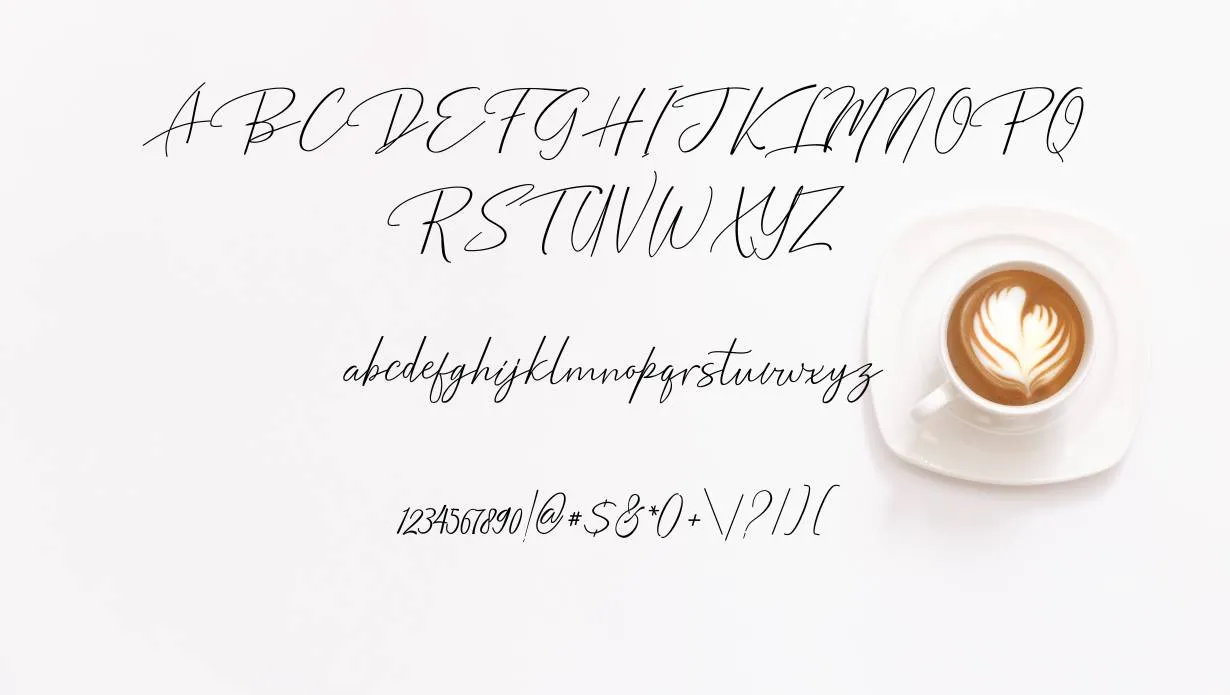
The Bentosa Font boasts a unique and artistic style. Its unconventional and creative letters bring a sense of individuality and flair to any text.
| Name | Bentosa Font |
| Designer | Polem |